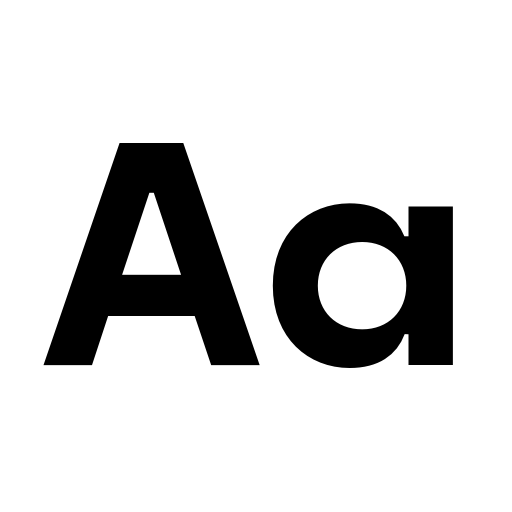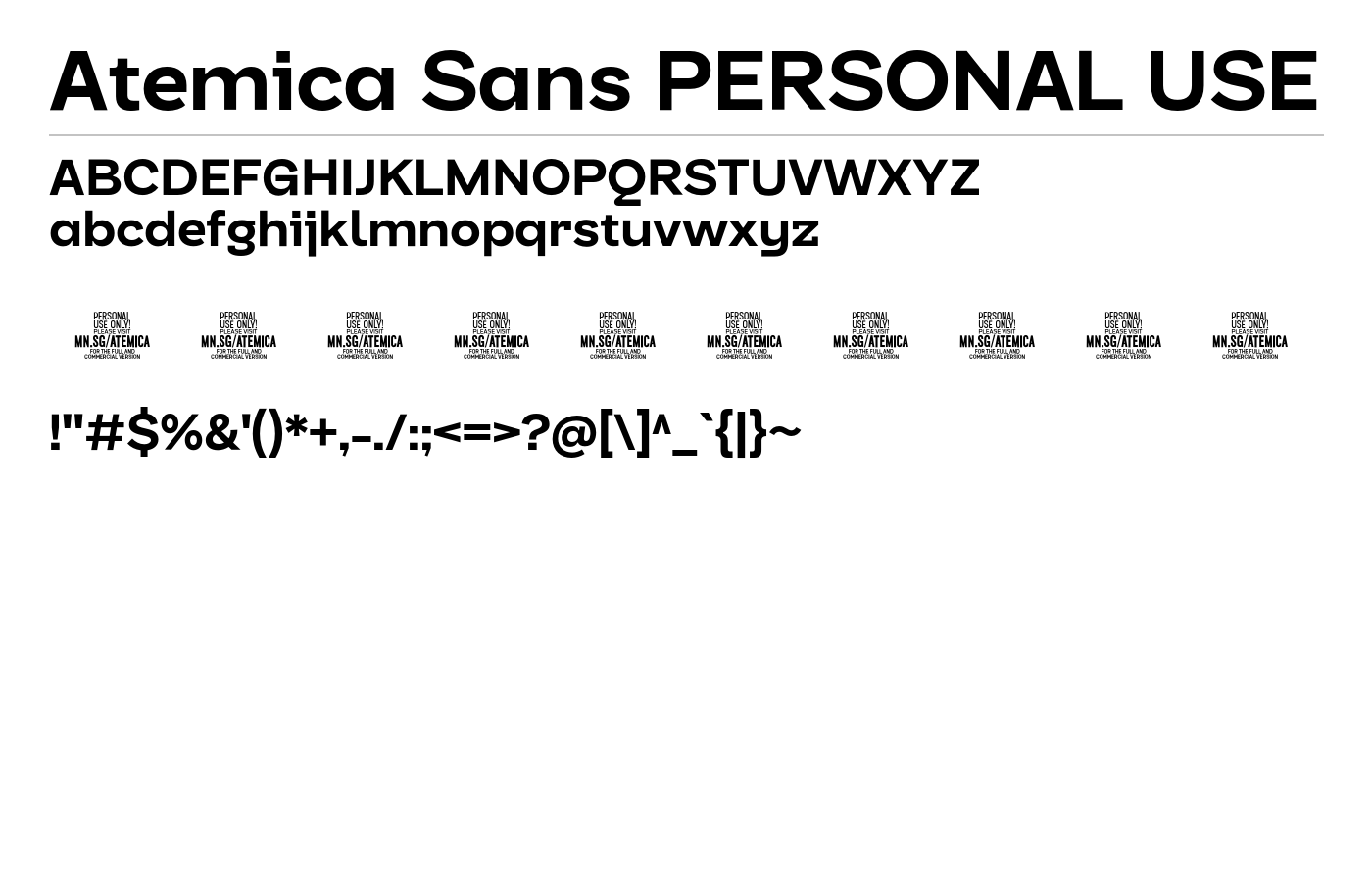
Atemica Sans is a clean and modern sans serif font characterized by its bold weight and balanced proportions, making it highly legible. Its simple geometric shapes and even stroke contrast give it a strong yet approachable appearance, suitable for a wide range of uses from branding to editorial design. This font works well in headlines and body text where clarity and contemporary style are desired.
Atemica Sans PERSONAL USE Font
About Atemica Sans PERSONAL USE Font